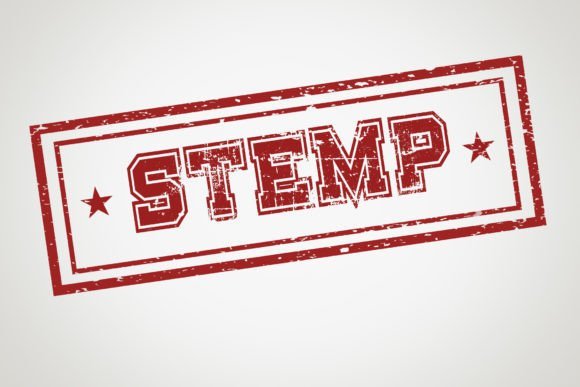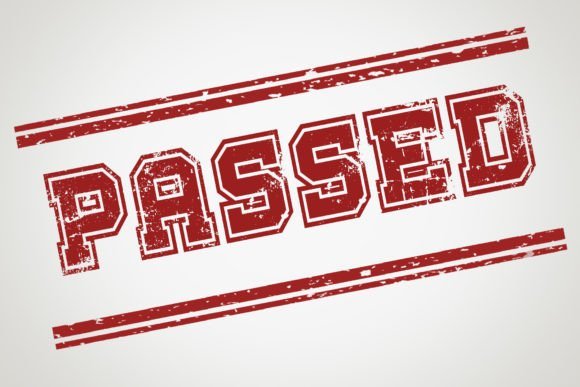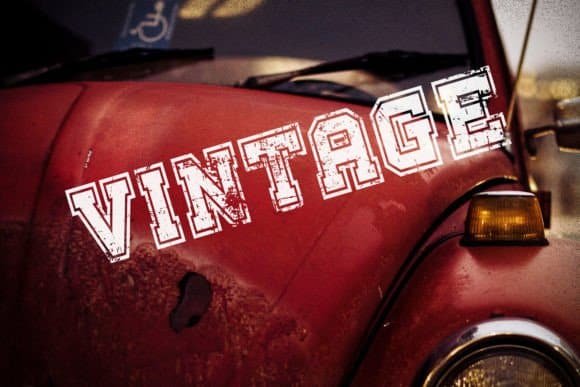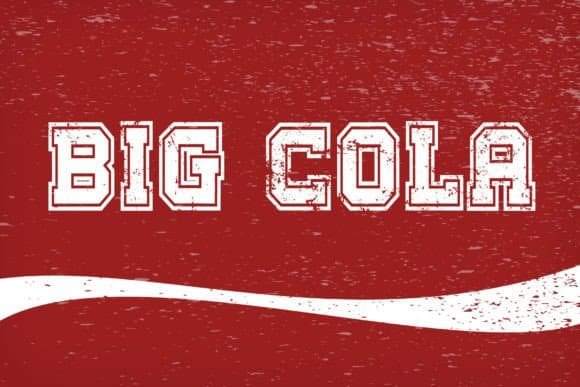
College Retro Font
College Retro is a vintage and grunge-distressed display font that will brighten up each of your designs. Add it confidently to your projects, and you will love the results.